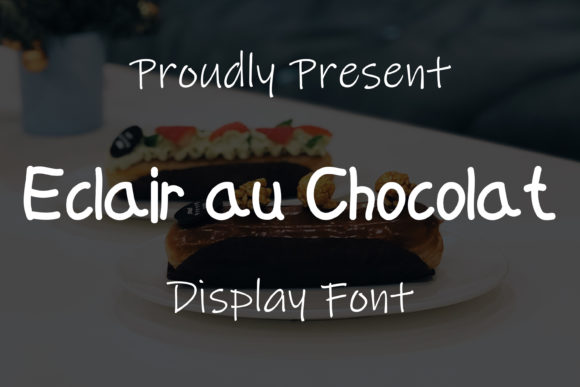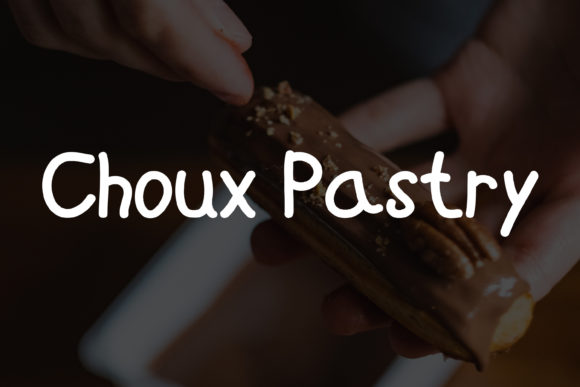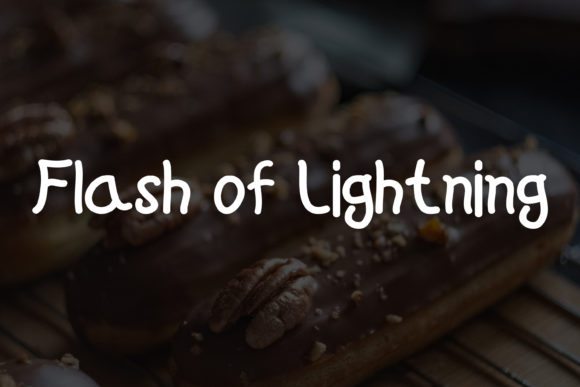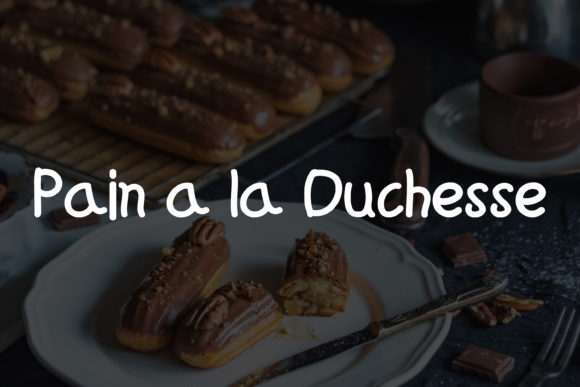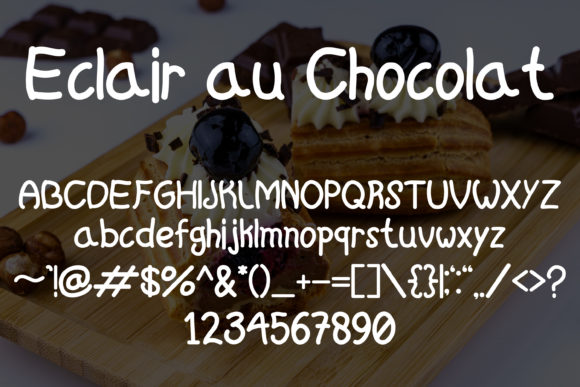
Eclair Au Chocolat Font
About Eclair Au Chocolat Font
Eclair au Chocolat is a cute and simple lettered handwritten font. This font was particularly crafted for those who need a beautiful and refreshing look to their designs.